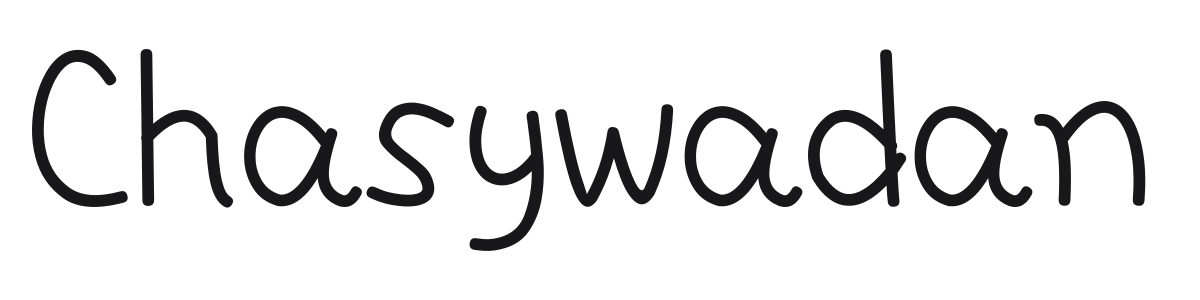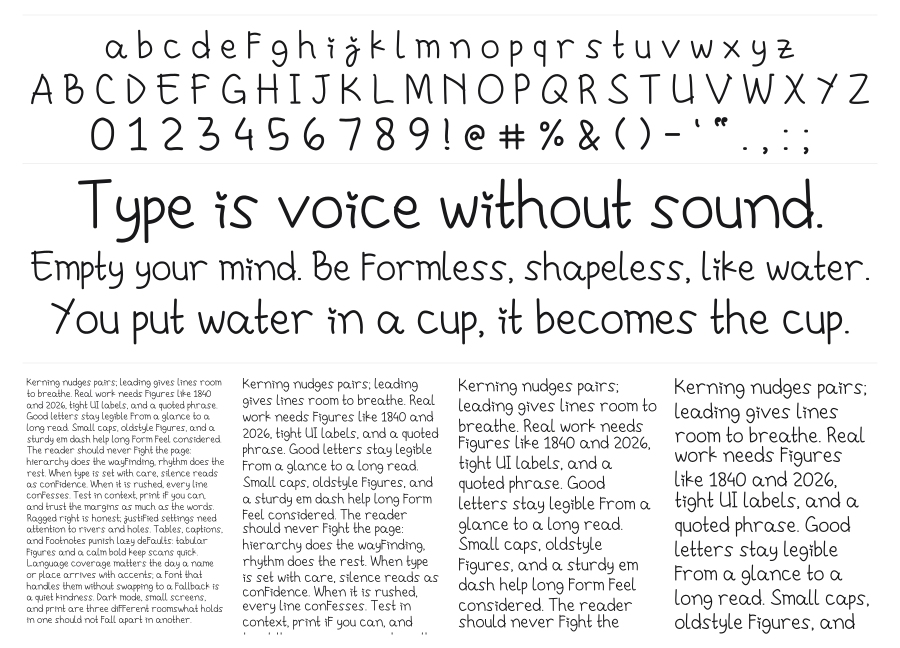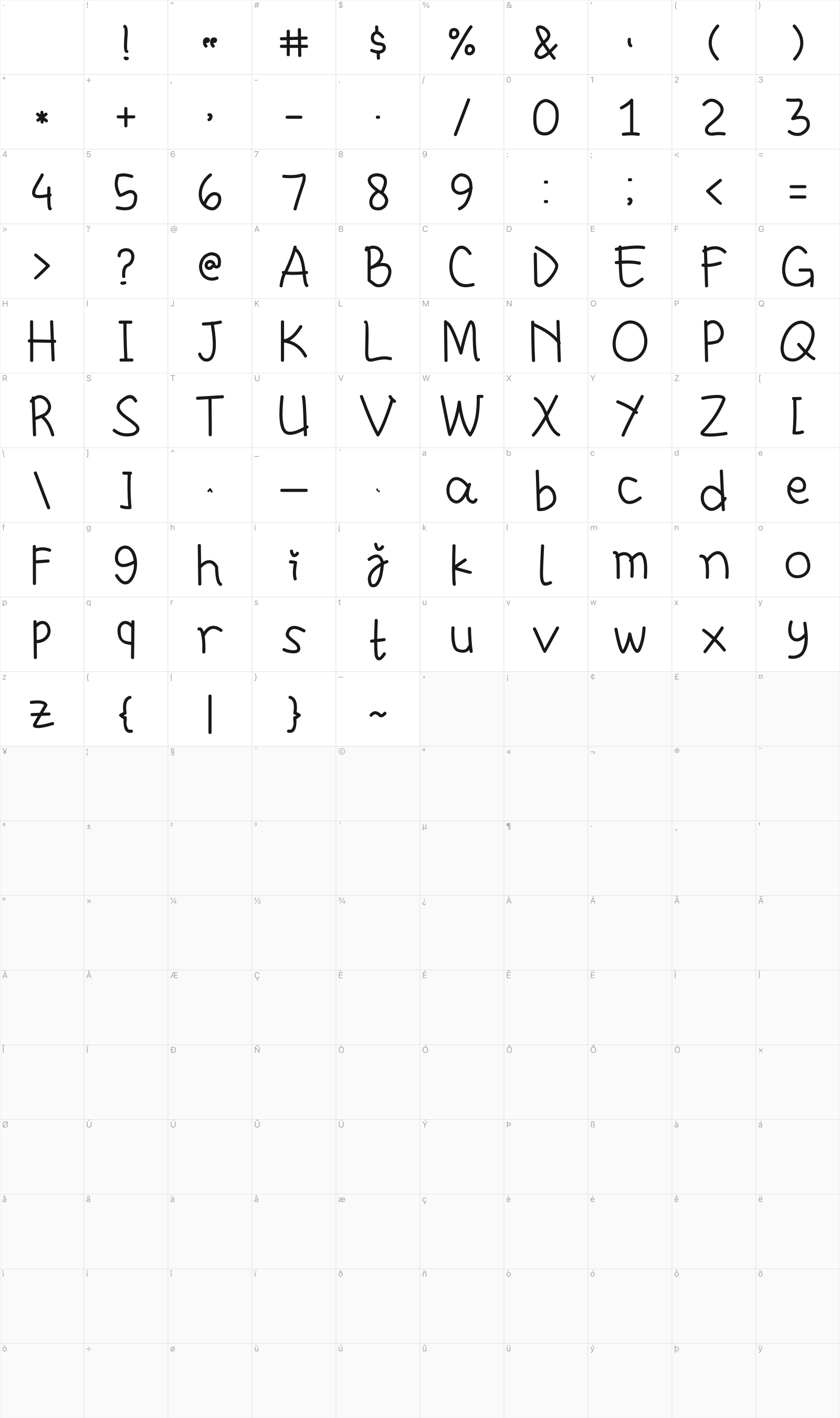
Chasywadan
Chasywadan is a casual handwritten font with light, rounded strokes and a relaxed, pen-on-paper feel. Its subtle baseline variation and soft terminals give it a genuine hand-drawn warmth rather than a mechanical approximation. Works well wherever a friendly, unpretentious touch is needed.